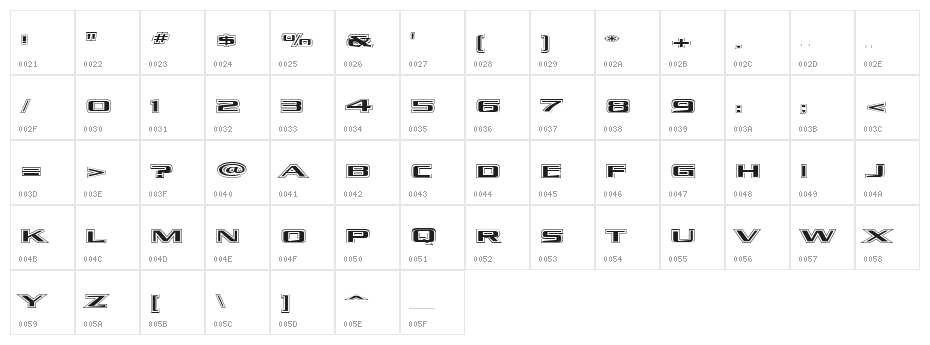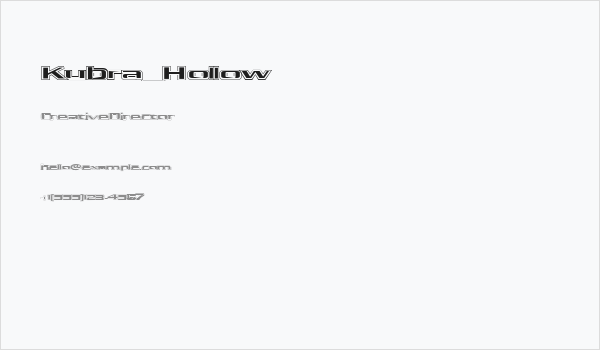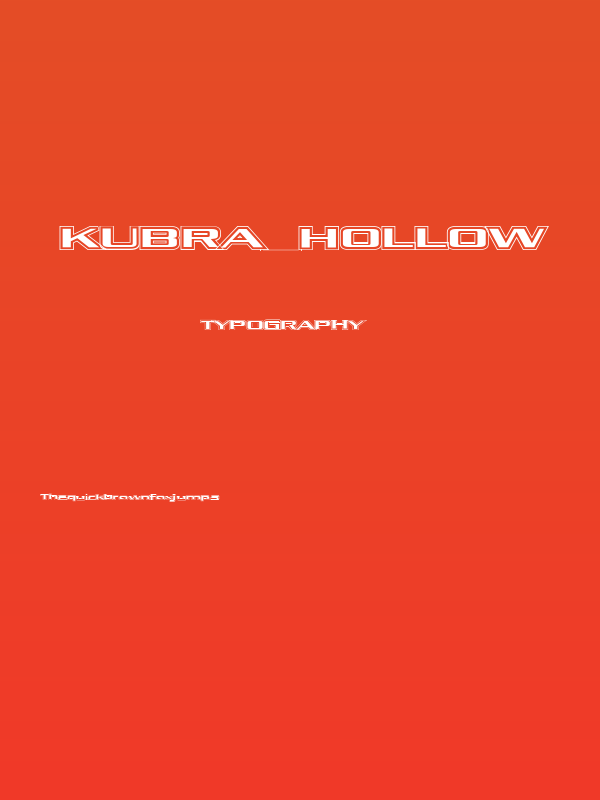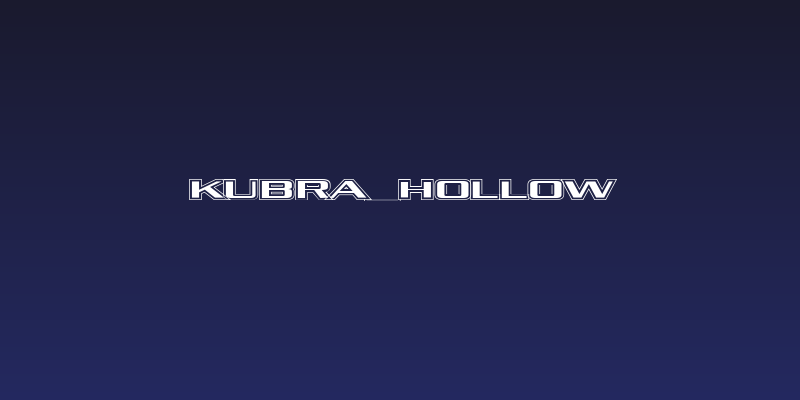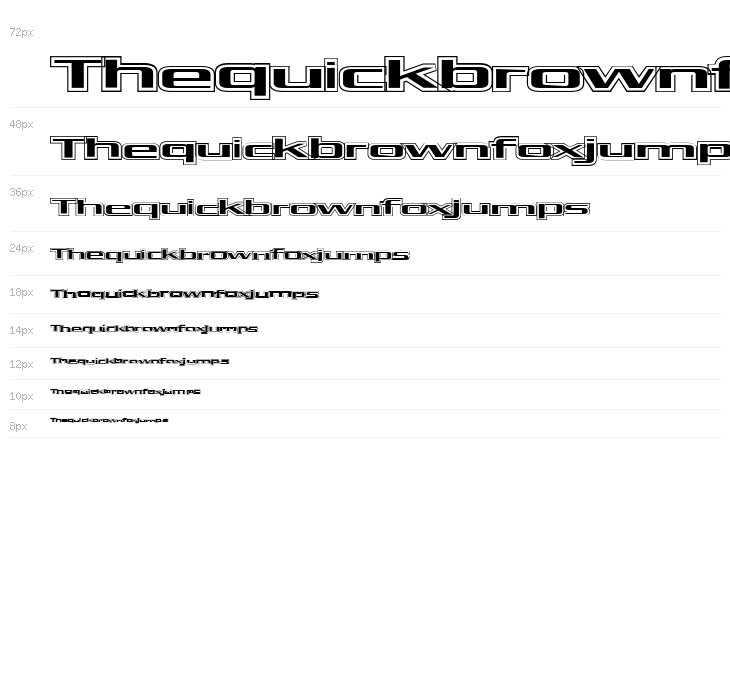
Kubra_Hollow Font
Kubra_Hollow Description
This font features a bold, geometric design with a hollow interior, giving it a striking and modern appearance. The uppercase and lowercase letters maintain a consistent thickness, with sharp angles and clean lines that create a sense of precision and strength. The numerals and special characters follow the same design principles, ensuring uniformity across all glyphs. The hollow effect adds depth and dimension, making it ideal for eye-catching displays. Its structured form and contemporary style make it suitable for a variety of creative applications.
Proposed ProjectsIdeal for branding, posters, headlines, and any project requiring a bold, modern aesthetic.